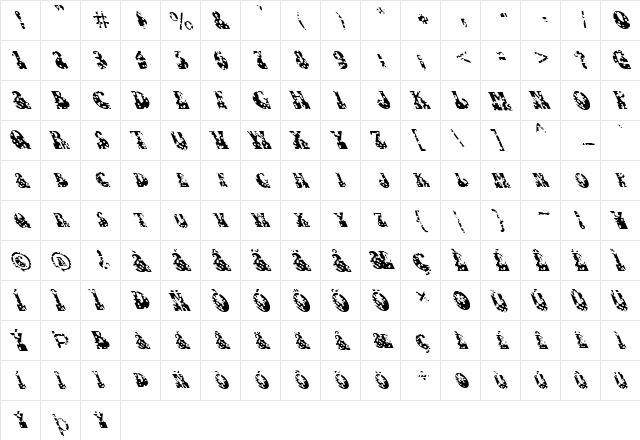
FZ JAZZY 16 HOLEY LEFTY Normal Font Preview
FZ JAZZY 16 HOLEY LEFTY Normal
Design Context for FZ JAZZY 16 HOLEY LEFTY Typeface
FZ JAZZY 16 HOLEY LEFTY is a composed and adaptable typeface that performs quietly and consistently across a wide range of design contexts.